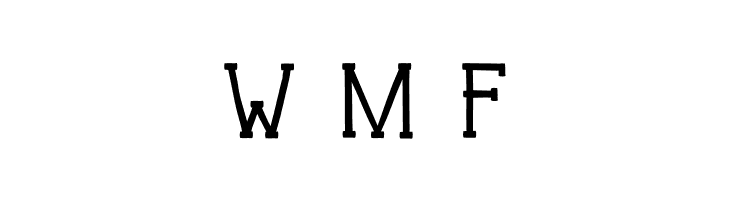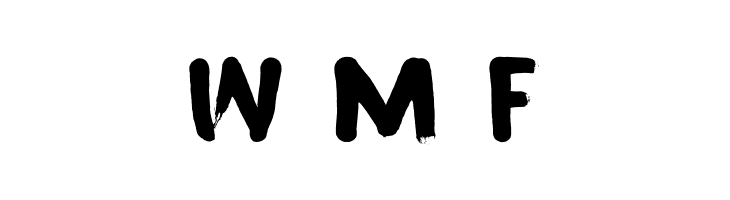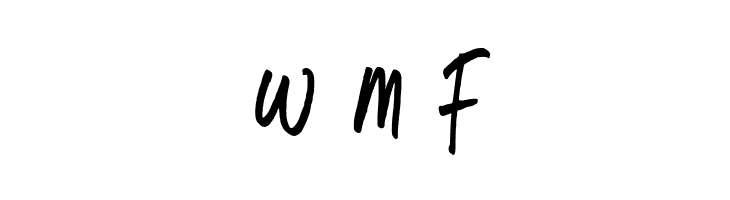
A playful, hand-drawn font with a whimsical and dynamic style.
A distressed, grungy font with splatter and drip effects for an edgy look.
A playful, rounded font with a bold and friendly appearance.
A bold, hand-drawn font with a rugged and artistic style.
A playful, casual handwritten font with irregular strokes and a lively appearance.
A bold, gritty font with splattered, distressed strokes and a chaotic artistic vibe.
A playful, handwritten font with tall, narrow letters and a whimsical style.
A bold, hand-painted style font with dynamic, irregular strokes.
A chaotic, distressed font with erratic strokes and a rebellious aesthetic.
A bold, expressive handwritten font with fluid strokes and a playful style.